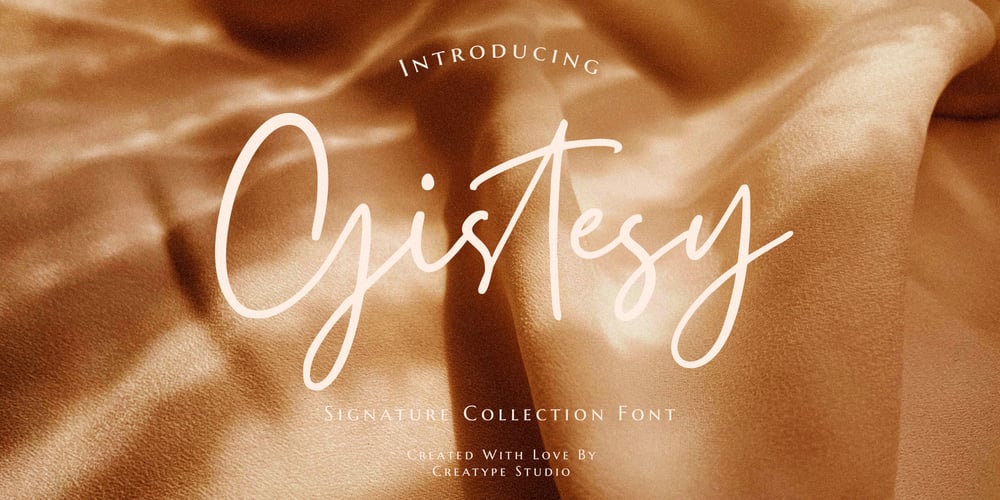
Gistesy Signature
Gistesy Signature font
Gistesy Signature Font Family was designed by Rian Rahardi and published by Creatype Studio. Gistesy Signature contains 1 styles and family package options. Gistesy Signature Collection is a signature collection font with natural movement that makes looks elegant, classy, and beautiful for your latest project. This font is perfect for branding projects, logos, wedding designs, social media posts, advertisements, product packaging, product designs, labels, photography, watermarks, invitations, stationery, and any projects that need handwriting taste.